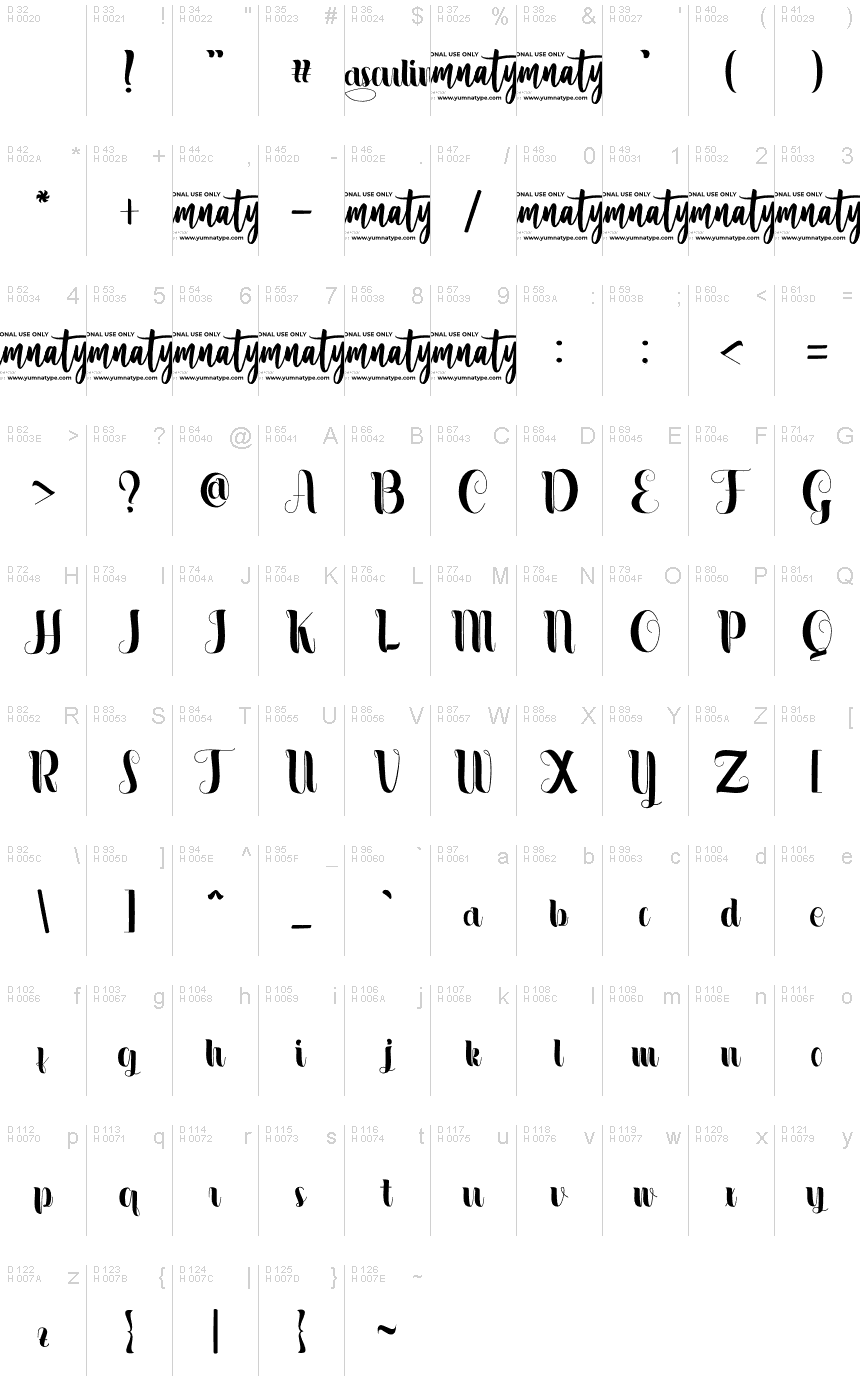
Masculine Personal Use
Masculine font is a cool calligraphy typeface designed by Giwidodo/Donis Miftahudin of Din Studio.
Masculine is a beautiful handwritten font. Made for any professional project branding. It is the best for logos, branding, and quotes. Every letter has a unique and beautiful touch.